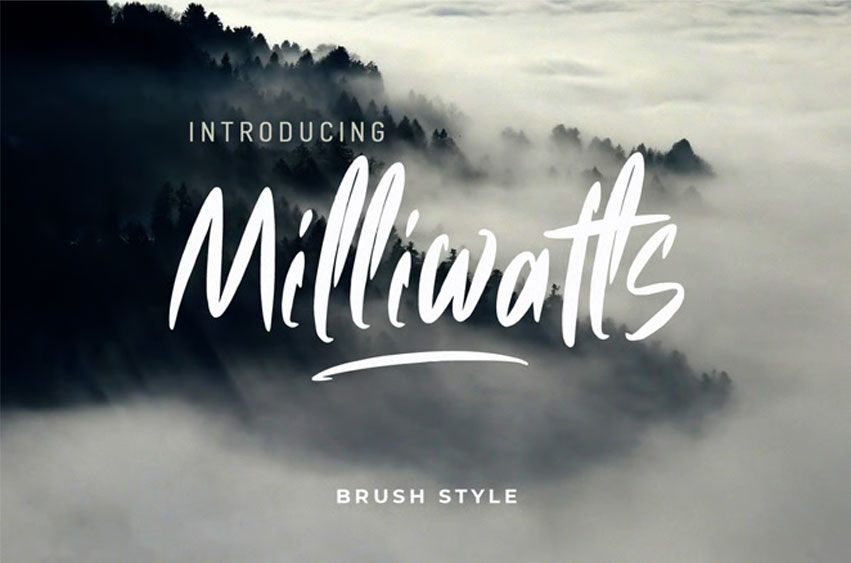
Milliwatts Font is a casual handwritten script font with smooth strokes and an organic feel. Designed to look natural and expressive, it works perfectly for modern branding, inspirational quotes, social media posts, packaging, posters, and personal projects.
The font includes uppercase and lowercase letters, numerals, punctuation, and multilingual support. Its clean handwritten style makes Milliwatts easy to read while still maintaining a friendly, authentic personality.
Ideal for designers who want a relaxed, human touch in their typography.
- Uppercase & lowercase characters
- Numbers & punctuation
- Multilingual support
- Smooth handwritten style
- Suitable for branding, quotes, and social media